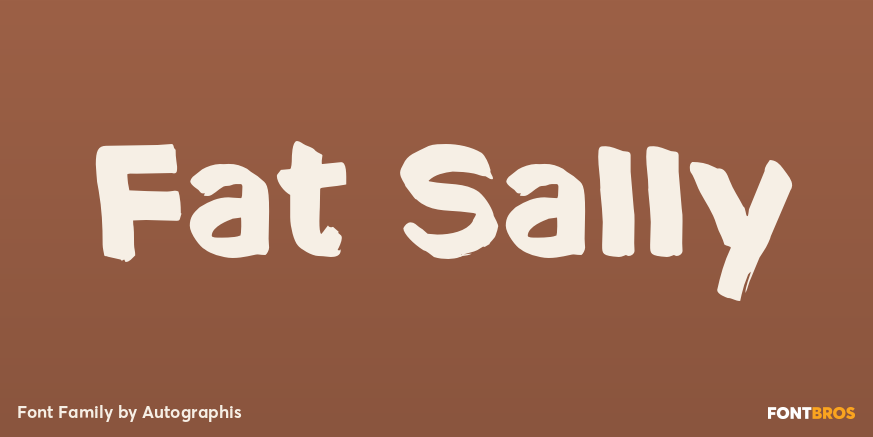
Fat Sally
About Fat Sally
FatSally is written with a broad felt-tip marker, scanned and finished by hand on screen, taking care to emphasize the typical ?marker? feeling.